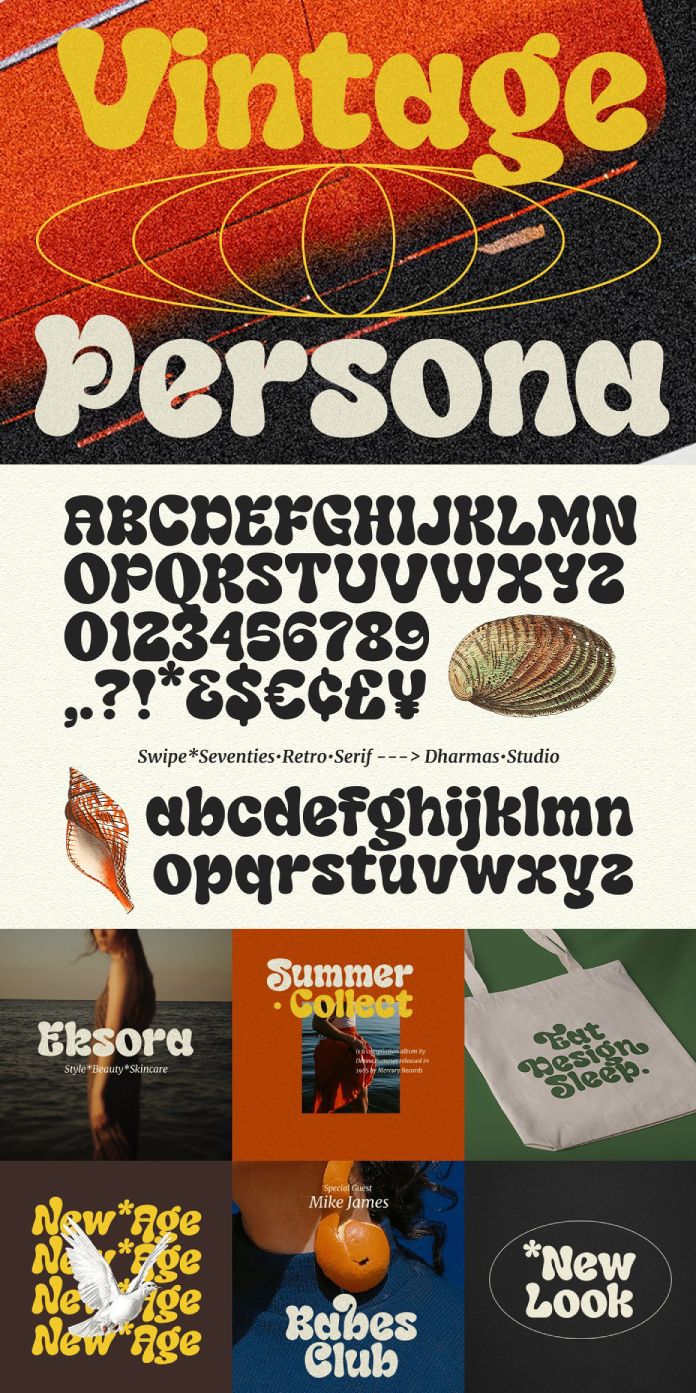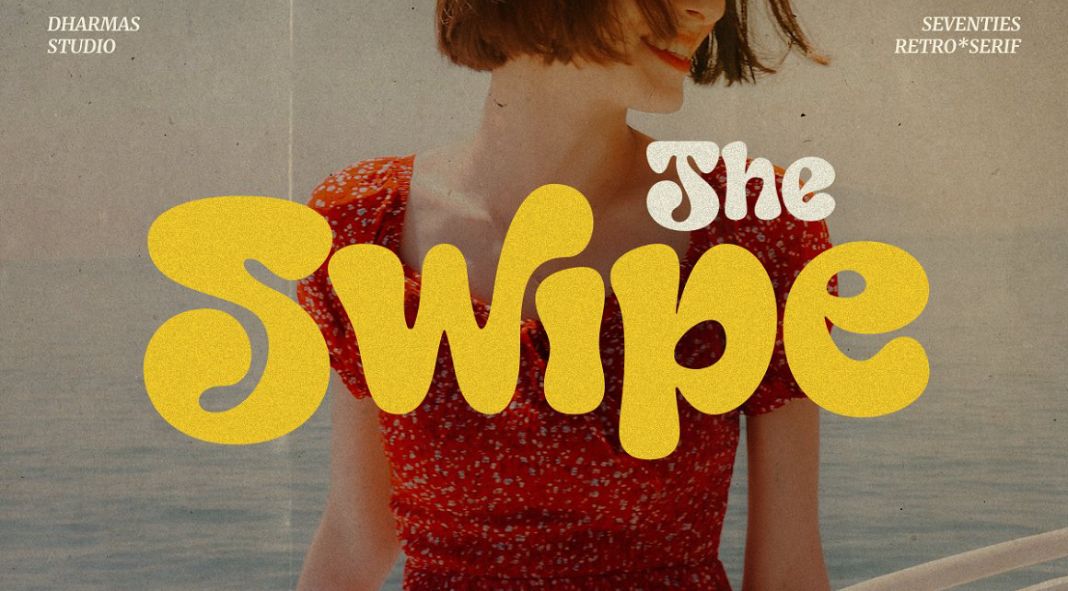
Say hello to Swipe, a fun seventies retro typeface.
Swipe, a seventies-inspired typeface, is the perfect choice for creating any project with a delightful retro feel. Created and published by Dharmas Studio, its gentle curves, and bold regular and oblique styles will add an extra level of charm to your design that’s sure to be eye-catching! With Swipe’s irresistible nostalgic appeal, transforming projects into works of art has never been easier.
The Swipe typeface offers 105 delightful alternates and ligatures, with 4 distinct stylistic sets. With two styles, regular and italic, this font is ideal for a wide range of uses, from headings to logos, apparel designs to posters, and book covers.